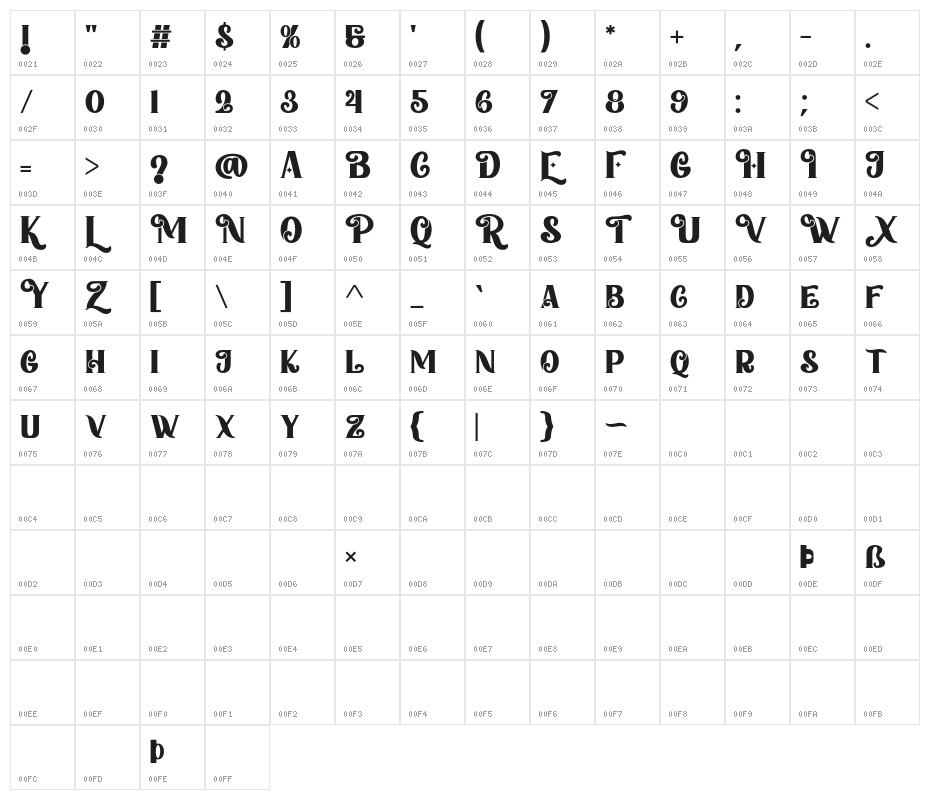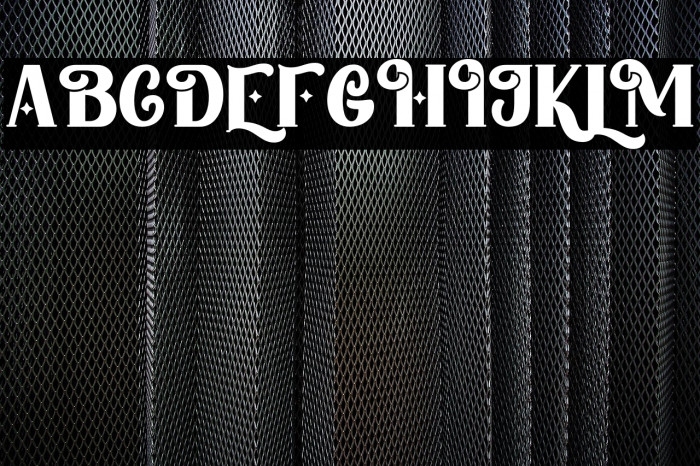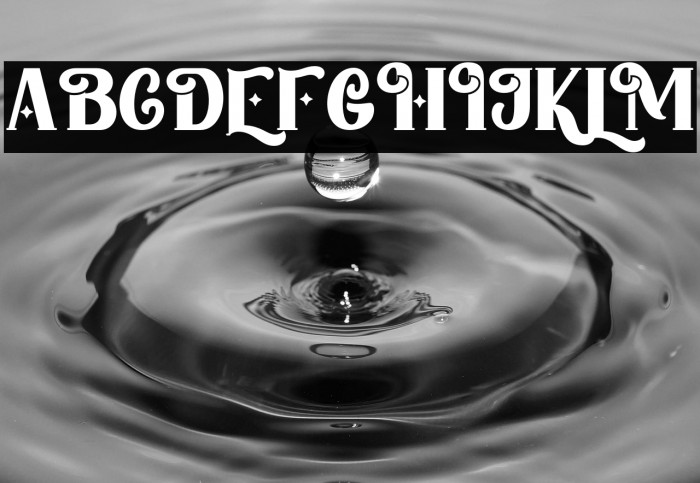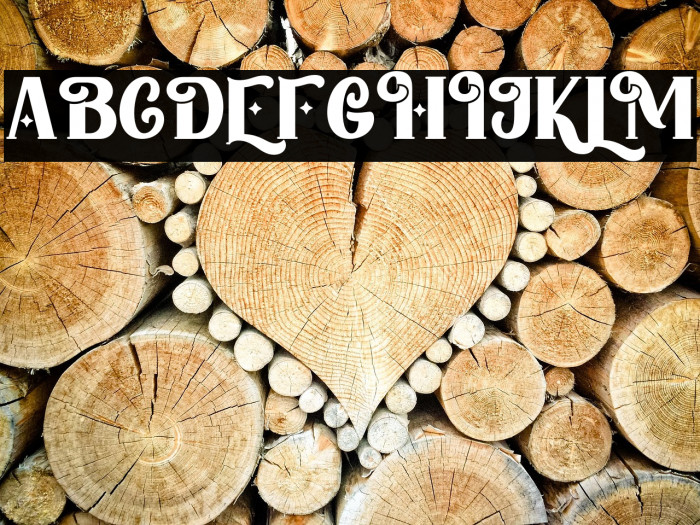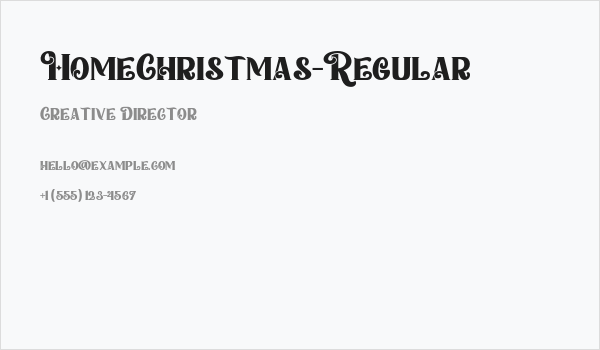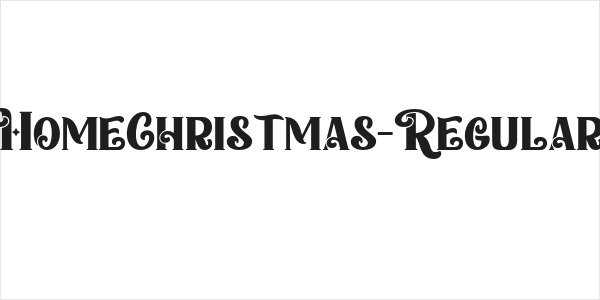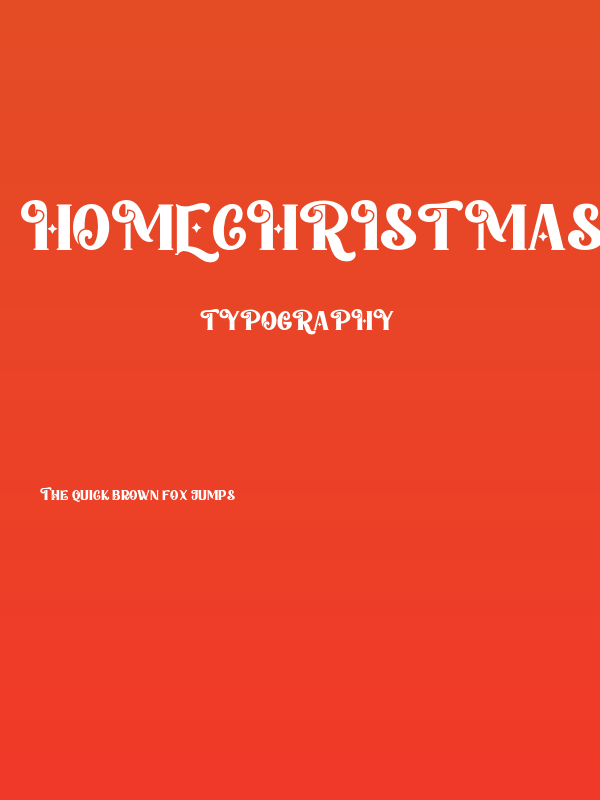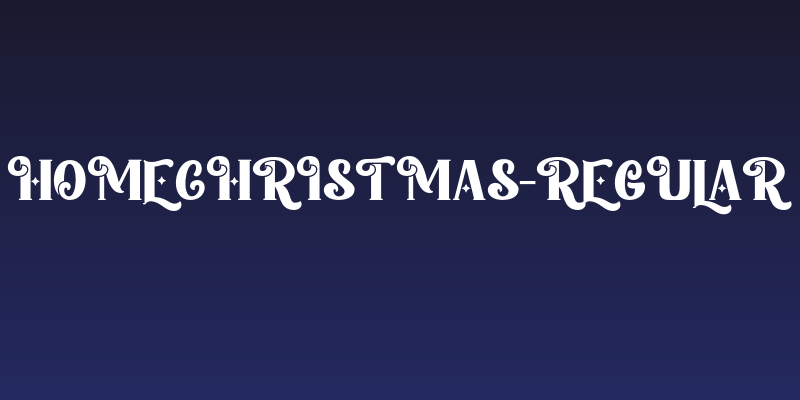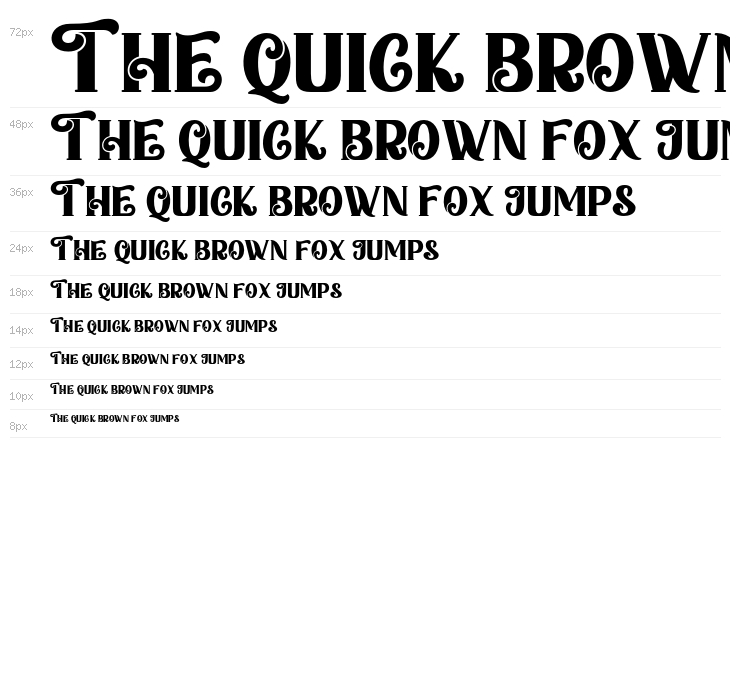
HomeChristmas-Regular Font
HomeChristmas-Regular Description
This font features a whimsical and festive design, perfect for holiday-themed projects. The characters are adorned with decorative elements such as stars and curls, giving it a playful and joyful appearance. The uppercase letters are bold and prominent, while the lowercase letters maintain the same decorative style, ensuring consistency throughout. The numerals and special characters are equally embellished, making them suitable for creative and eye-catching designs. This font is ideal for projects that require a touch of holiday spirit and creativity.
| Proposed Projects | Ideal for holiday cards, festive banners, seasonal advertisements, and creative invitations. |